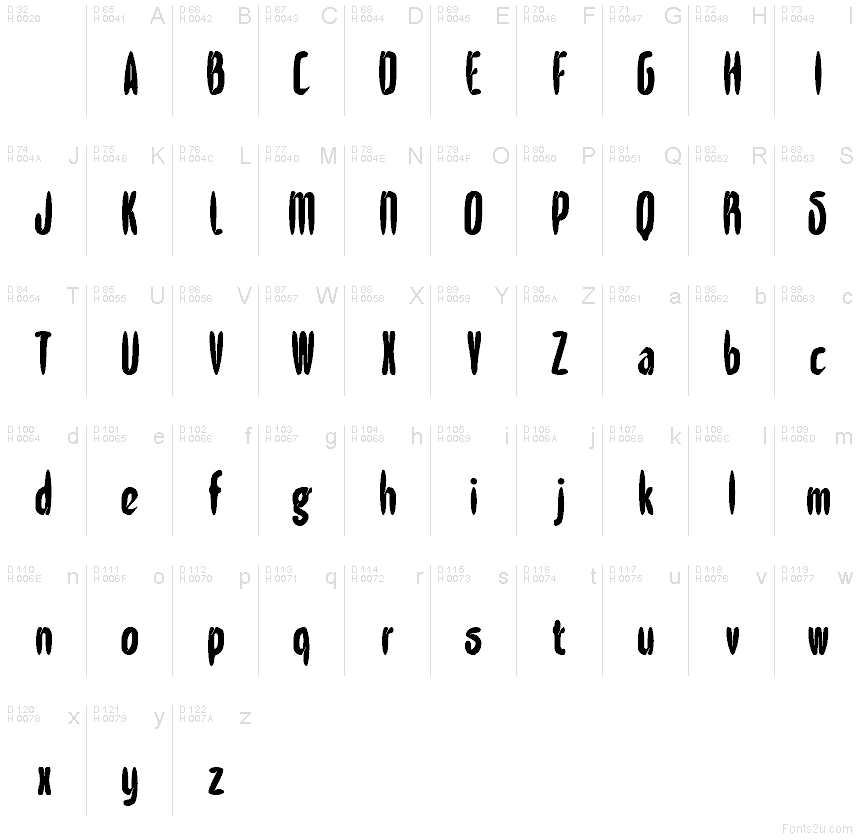
CS Hosted Drawn font by Craft Supply Co. is a free condensed brush display font. Built inside the CS Hosted family, it solves a familiar headache: getting hand‑painted energy into tight layouts without losing legibility. Tall, narrow forms stack beautifully, while the inky, slightly dry‑brush texture adds just enough grit. Tapered strokes and softly feathered edges keep letters lively, but a steady rhythm and generous vertical flow make headlines snap into place.
Using CS Hosted Drawn, you can squeeze punchy titles onto bottle labels, cafe menus, event posters, stickers, merch tags, and compact packaging panels. It shines on social graphics where space is scarce and attitude matters. Pair this free font with a clean grotesk for body copy, and loosen the tracking a touch at larger sizes to let the brush texture breathe.